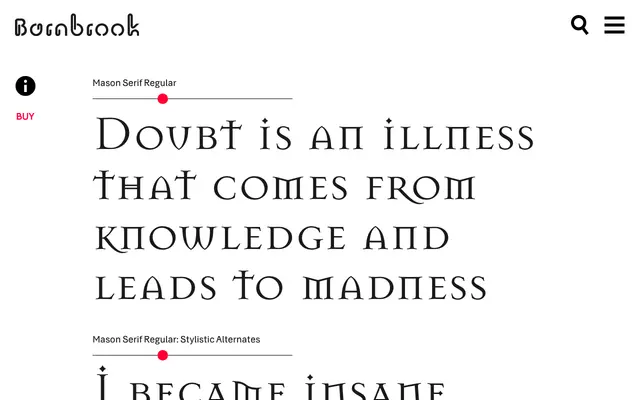
Mason Serif
Barnbrook · Jonathan Barnbrook
A display serif drawing on European architectural forms, Gothic church windows and classical temples, with a deliberately confrontational naming history.
Originally released under the name Manson, a reference to serial killer Charles Manson chosen to juxtapose beauty and violence, the typeface was renamed Mason by distributor Emigre following complaints. Its letterforms pull from the gardens of Versailles, Grecian temple porticos and Gothic tracery, colliding historical references into a single expressive display face. It has since been adopted by major clients including the BBC and Walt Disney.
Mason Serif draws on eclectic historical and architectural references including Gothic, Classical and Christian forms, placing it firmly in the display serif category with a decorative, expressive character.